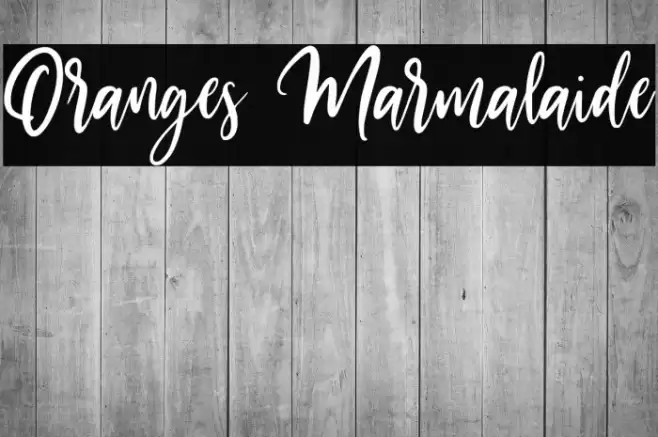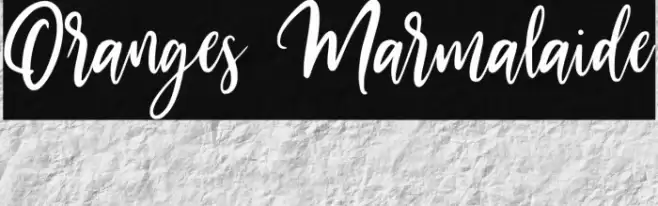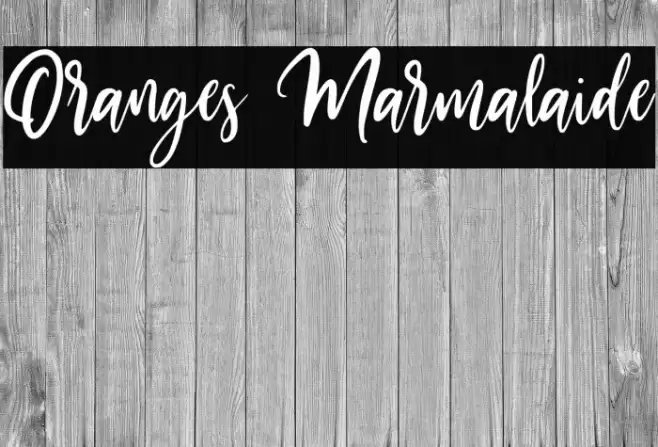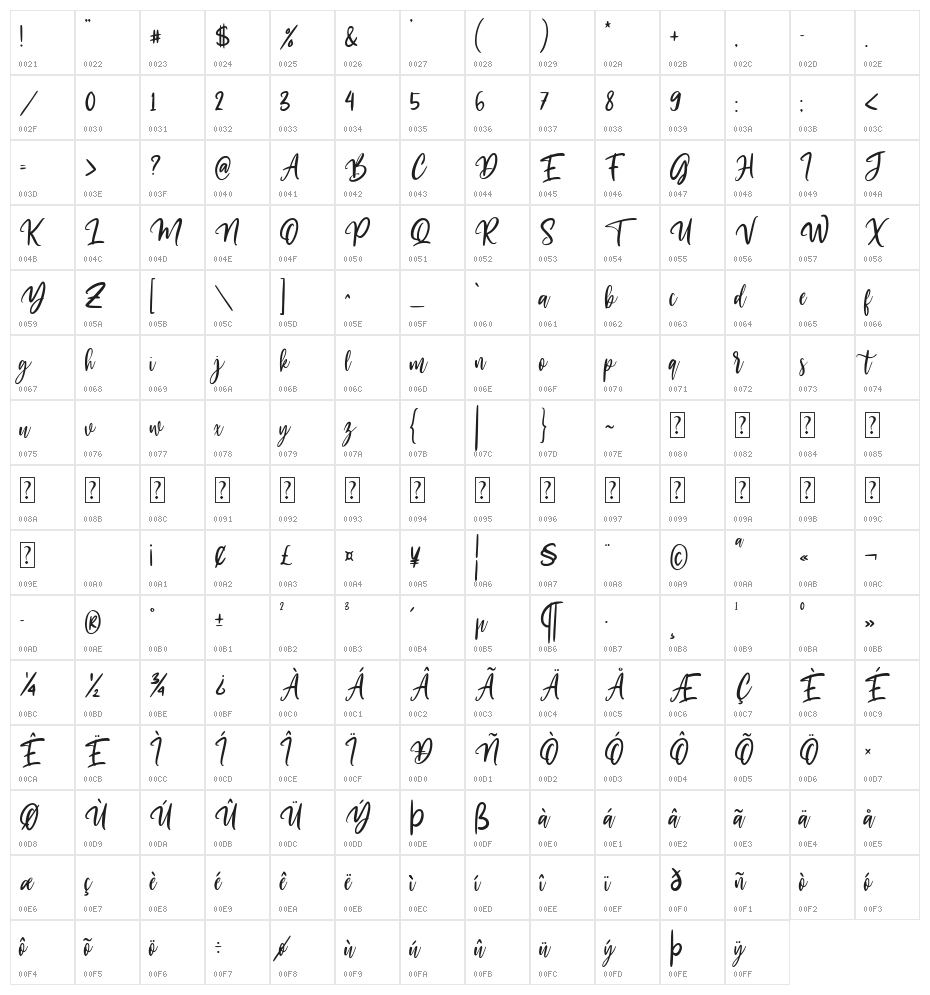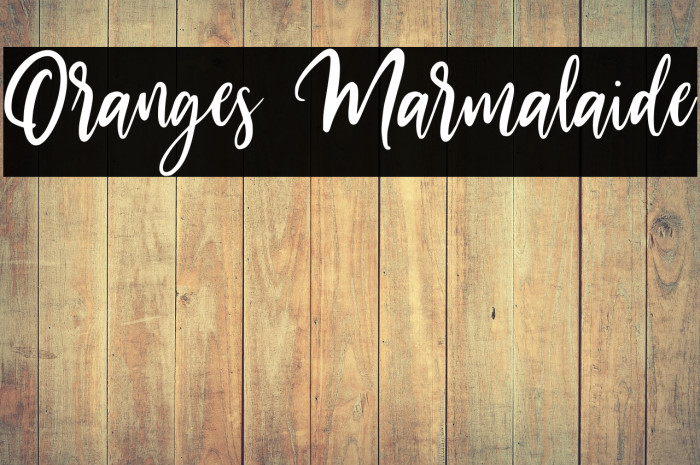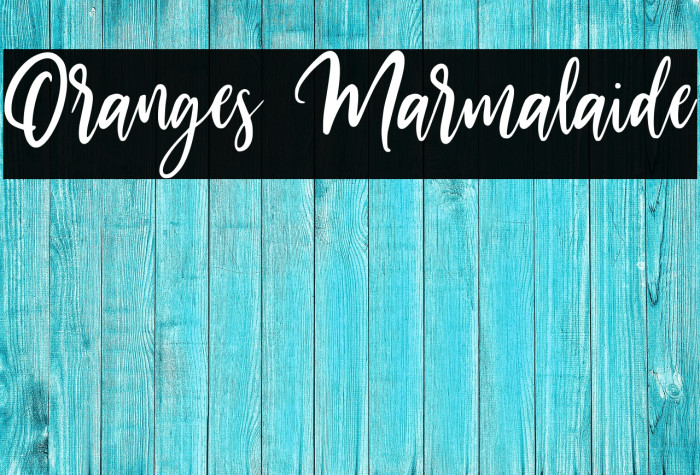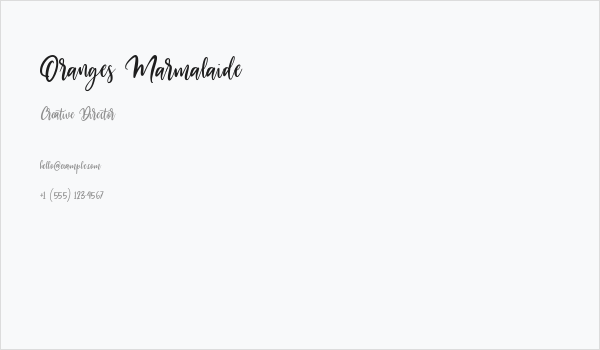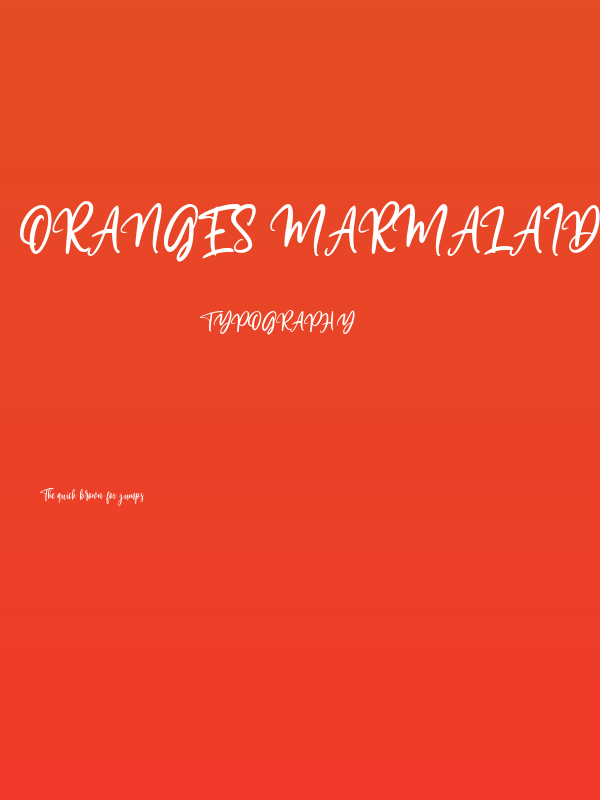
Oranges Marmalaide Font
Oranges Marmalaide Description
This font features a lively and expressive script style, characterized by its fluid and dynamic strokes. The uppercase letters are bold and slightly slanted, giving a sense of movement and elegance. The lowercase letters maintain a consistent flow, with some letters featuring loops and swashes that enhance its handwritten appeal. The numerals are well-integrated, maintaining the same energetic style as the letters. Special characters are thoughtfully designed to match the overall aesthetic, making this font versatile for various creative applications.
A lively and expressive script font with dynamic strokes and a handwritten appeal from Regular fonts.
- Proposed Projects: Ideal for wedding invitations, greeting cards, branding projects, and social media graphics.
- Use Case: Logos, Headlines, Invitations